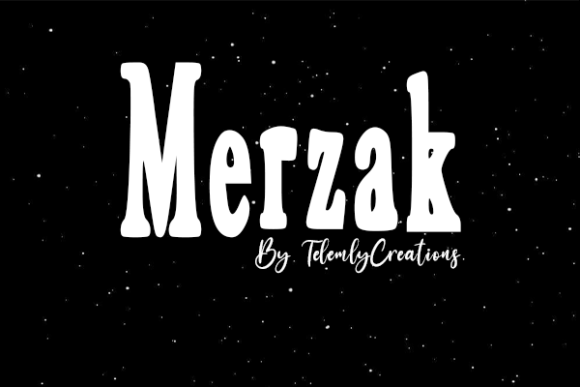
Merzak Font
Behold Merzak Font, the enchanting serif font that exudes elegance and sophistication. Crafted by the artistic hands at TelemlyCreations, Merzak is not just a font; it's an artistic masterpiece that captivates the senses.
Merzak's graceful curves and delicate details bring an air of timeless beauty to any project you undertake. Whether you're a seasoned designer seeking to leave an indelible mark or a creative enthusiast seeking to explore new horizons, Merzak will be your trusted companion.
With Merzak, you'll create designs that radiate charm and individuality. Its versatility extends from crafting heartfelt greeting cards to designing captivating digital masterpieces. Merzak breathes life into presentations, adding a touch of eloquence that commands attention.
Imagine your mug designs adorned with Merzak's exquisite characters. Each sip from that mug will be a celebration of creativity and style. Merzak's presence on your merchandise will elevate it beyond mere objects; they'll become cherished keepsakes, cherished by those who appreciate the finer things in life.
Merzak is more than just a font; it's an investment in creative expression. It's a key that unlocks a world of possibilities, empowering you to transform ordinary designs into extraordinary works of art. Embark on this creative journey with Merzak and elevate your designs to new heights.